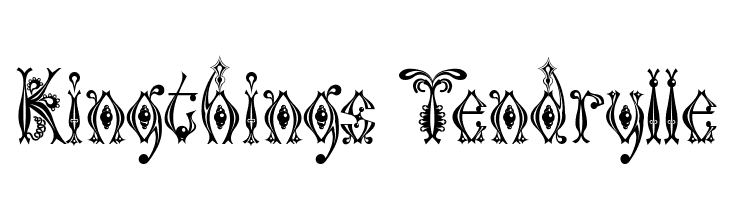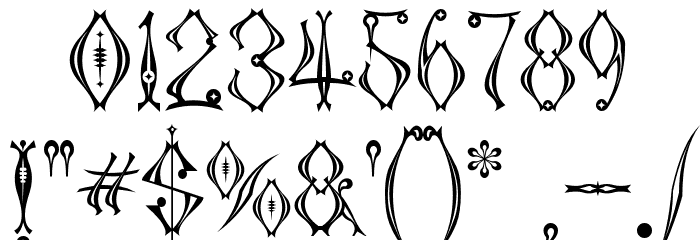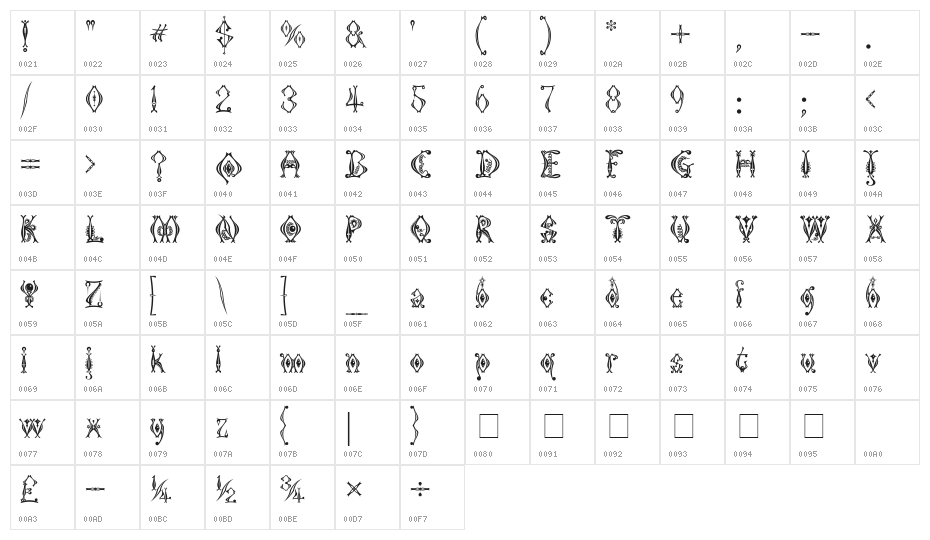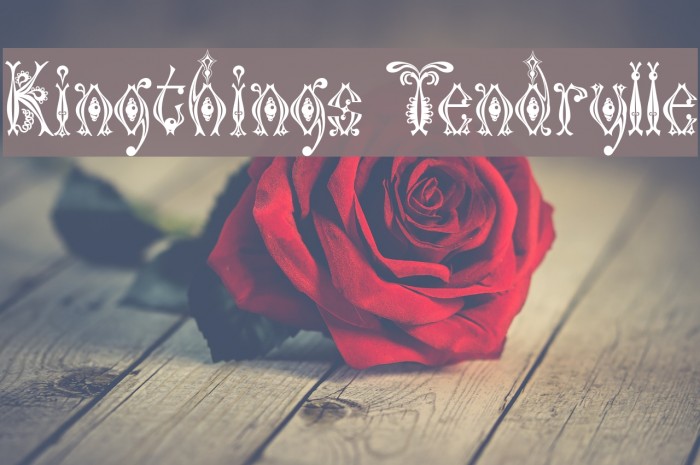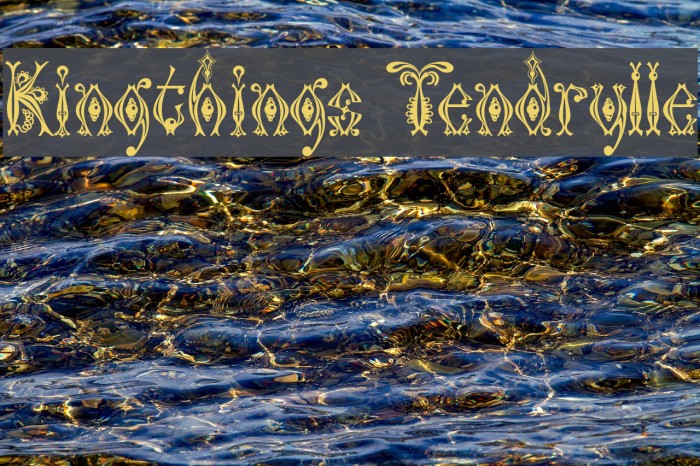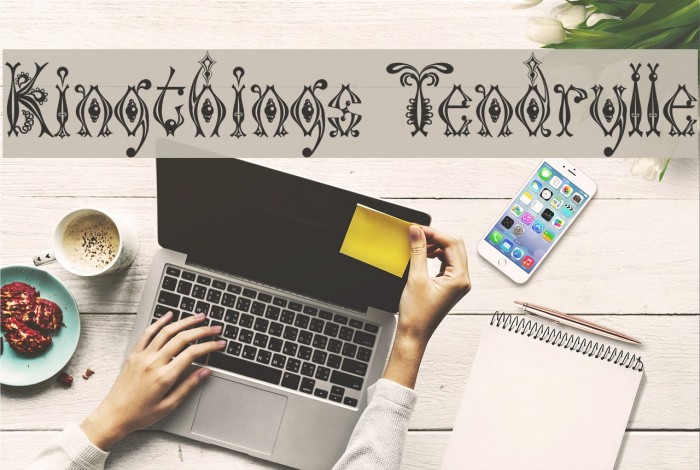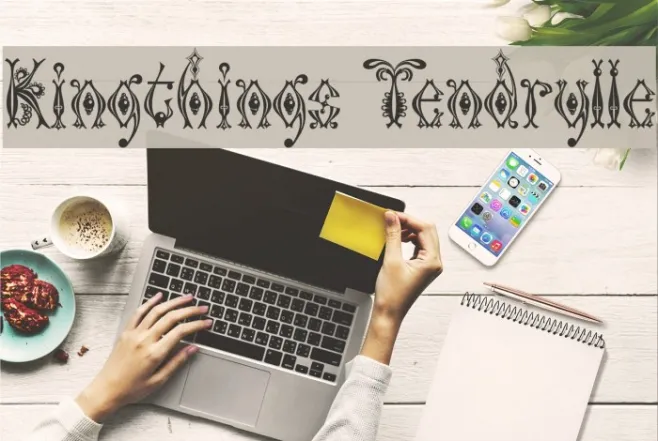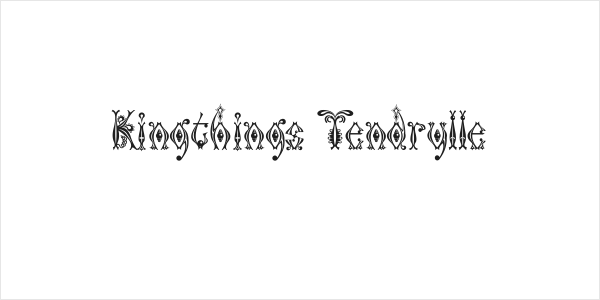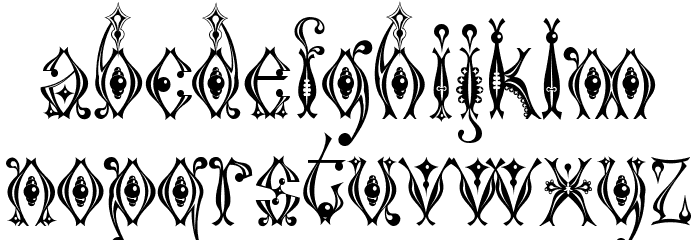
Kingthings Tendrylle Font
Kingthings Tendrylle Description
This font is a highly decorative and intricate typeface that features elaborate and ornate designs within each character. The letters are embellished with swirling patterns, loops, and pointed elements that give it a whimsical and fantasy-like appearance. The uppercase and lowercase letters maintain a consistent style, with each character appearing as a unique piece of art. The numbers and special characters also follow this elaborate design, making the font suitable for creative and artistic projects. Its unique style makes it stand out, capturing attention with its detailed and imaginative forms.
| Proposed Projects | Ideal for fantasy-themed projects, book covers, posters, and artistic invitations. |